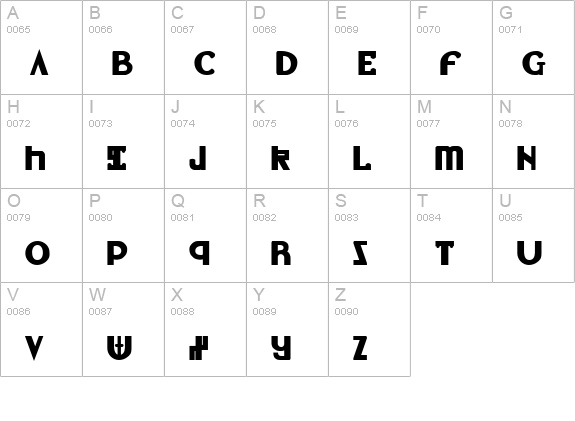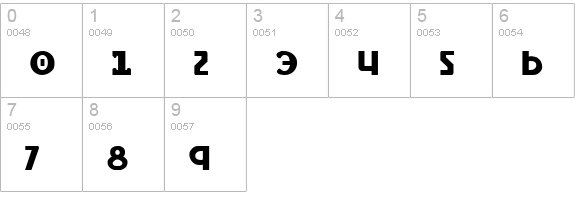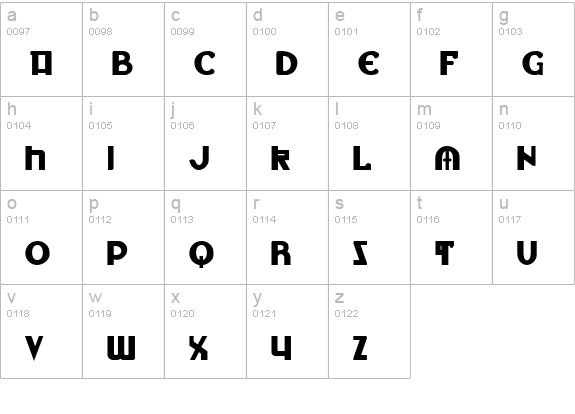
Lionheart Bold Font Details
Lionheart Bold is a strong, high-contrast variant in the Lionheart typeface family \xE2\x80\x94 well suited to headlines, attention-grabbing titles, and strong calls-to-action.
Lionheart Bold is a striking and powerful font that exudes strength and confidence. With its bold and commanding presence, this typeface is perfect for making a bold statement in any design project. The sharp edges and clean lines of Lionheart Bold give it a modern and sophisticated look that is sure to capture attention. What makes Lionheart Bold even more appealing is that it is available for free download at FontsMarket.com. This means that you can easily add this impressive font to your collection without any cost. Whether you are working on a poster, logo, or any other design project, Lionheart Bold will help you make a bold impact with its strong and distinctive style. Download Lionheart Bold today and unleash the power of this impressive font in your designs.